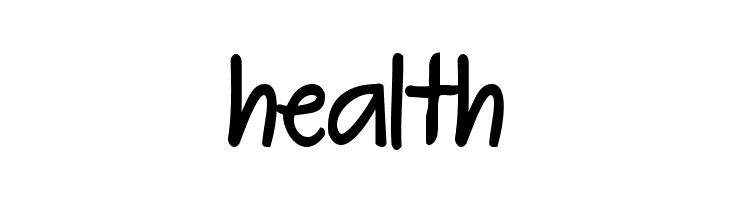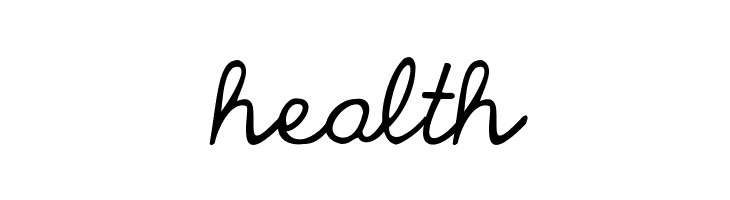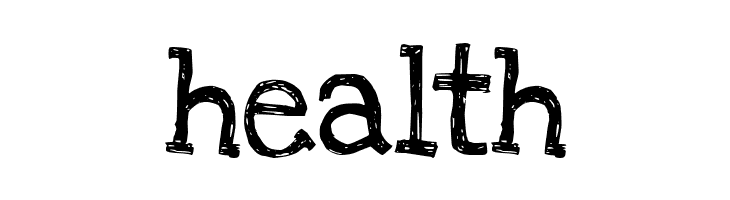
A bold, playful handwritten font with an energetic and informal style.
A playful, handwritten cursive font with smooth, flowing curves.
A clean, modern font with a geometric structure and strong readability.
A playful, handwritten-style font with a casual and friendly appearance.
A playful, handwritten font with uneven strokes and a casual, friendly style.
A whimsical and flowing script font with elegant, fluid strokes.
A playful, hand-drawn font with a whimsical and sketch-like texture.
A dotted educational font designed for teaching handwriting.
A bold, playful handwritten font with rounded, consistent strokes and a casual vibe.
A playful and whimsical font with bold strokes and rounded terminals.